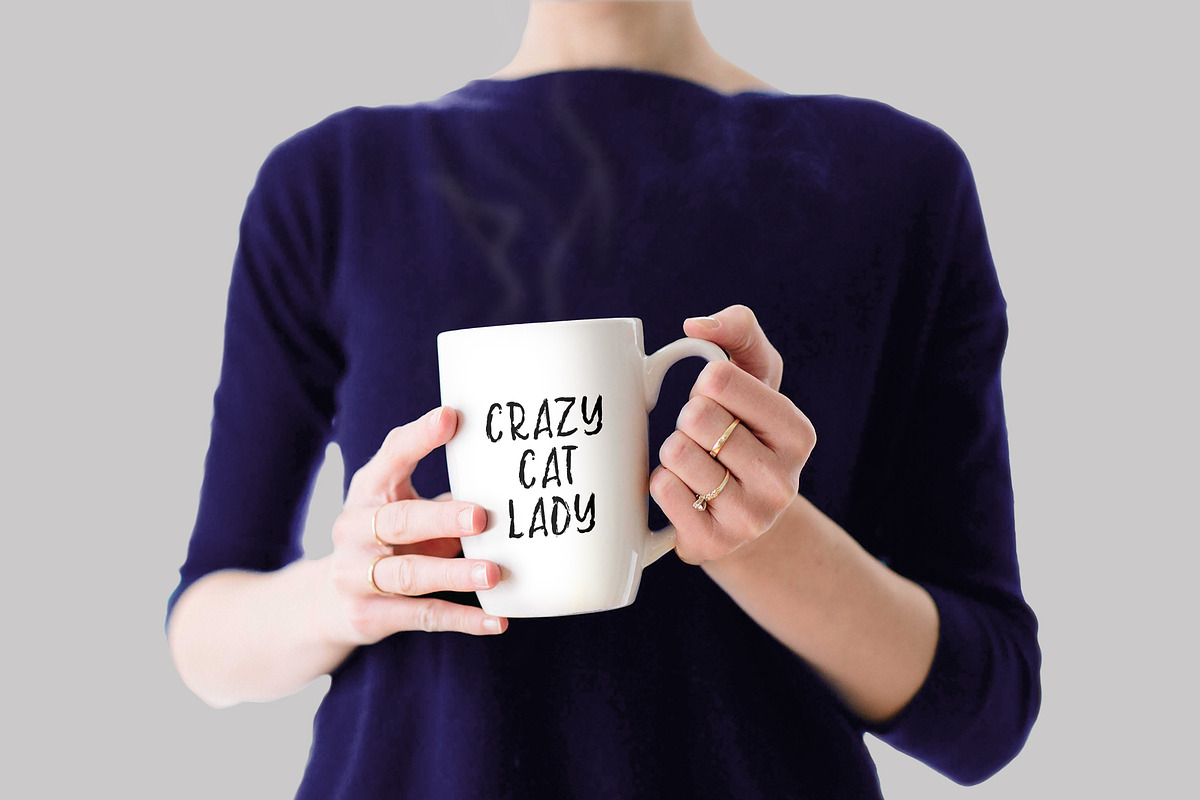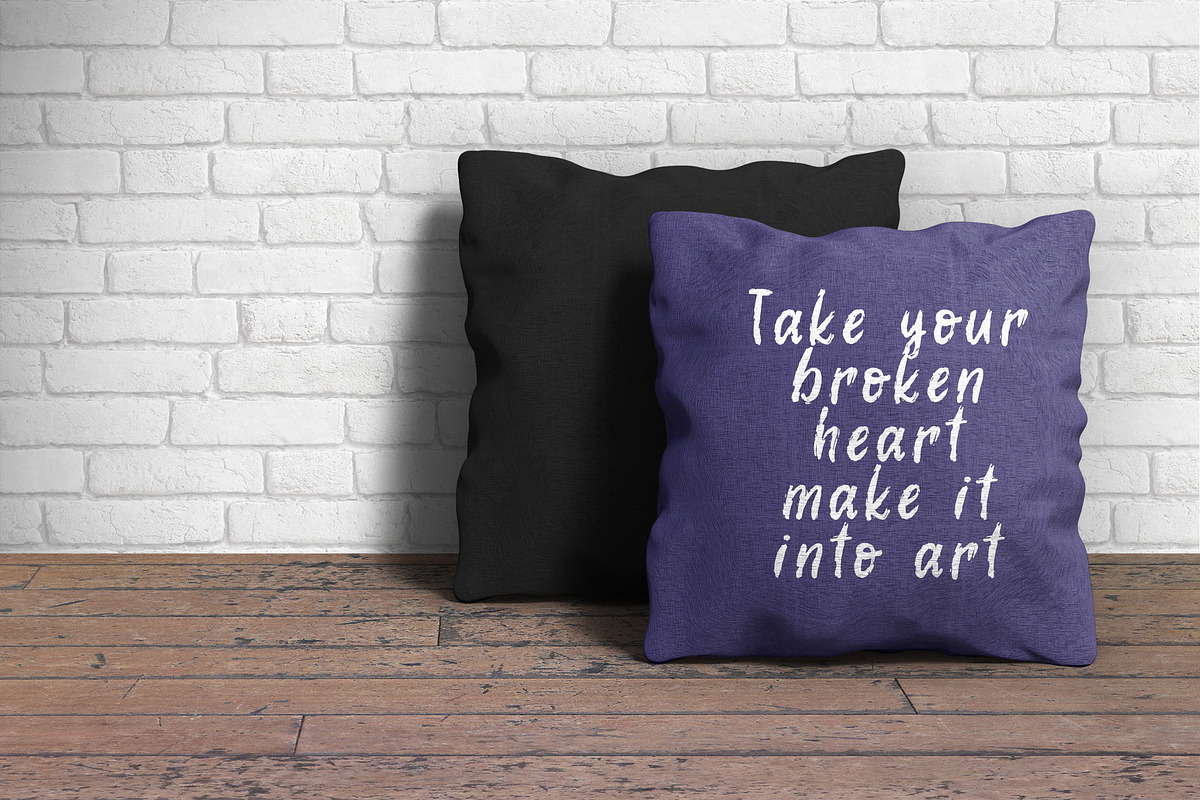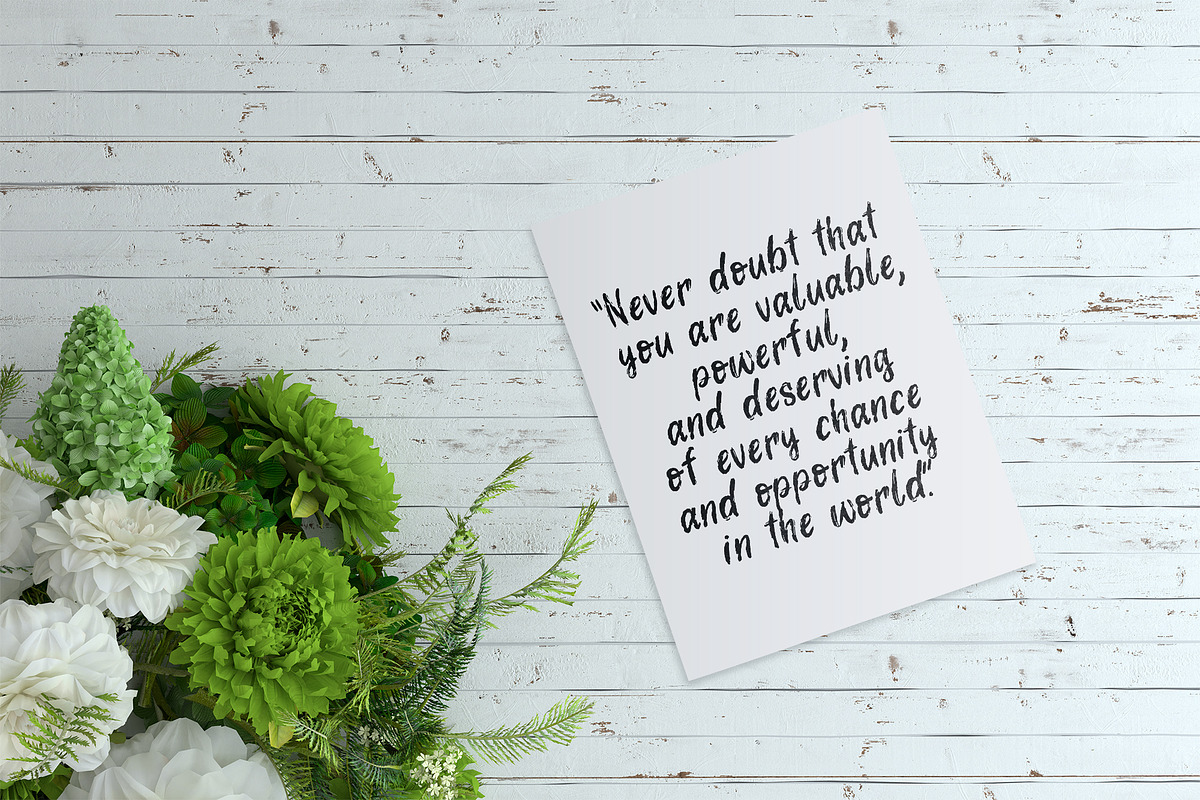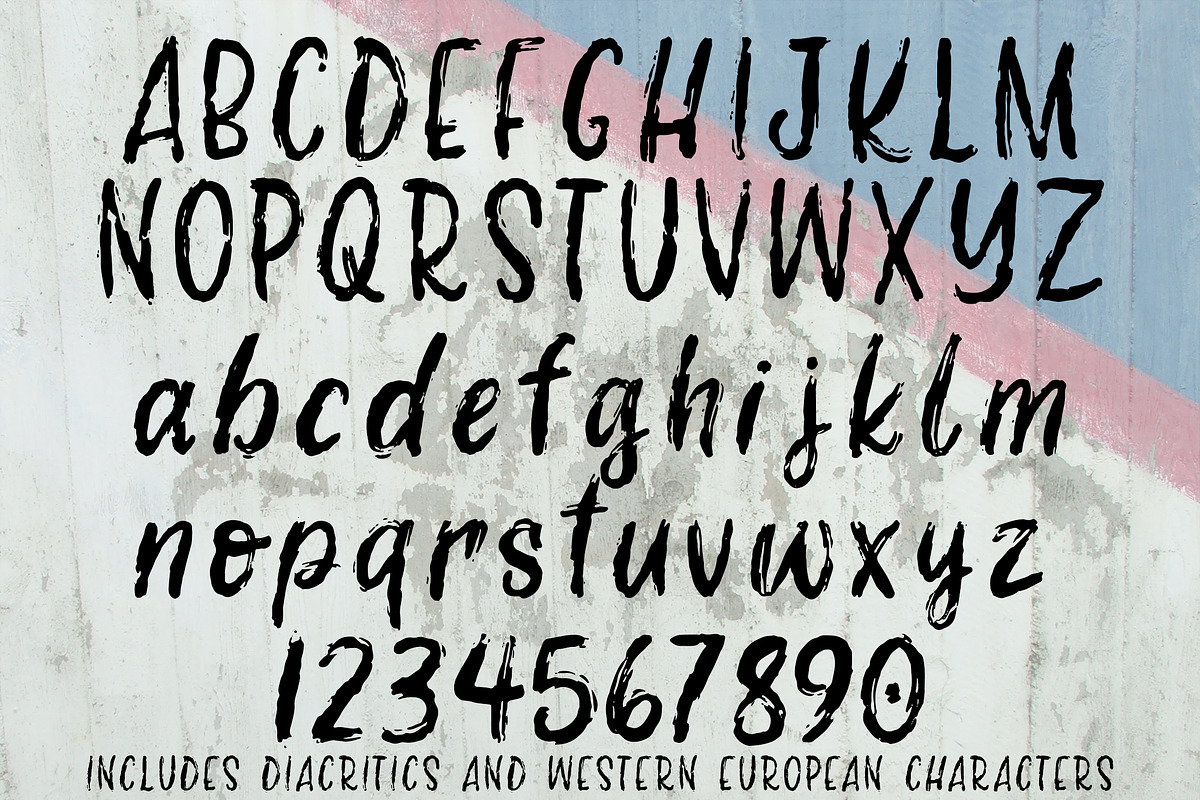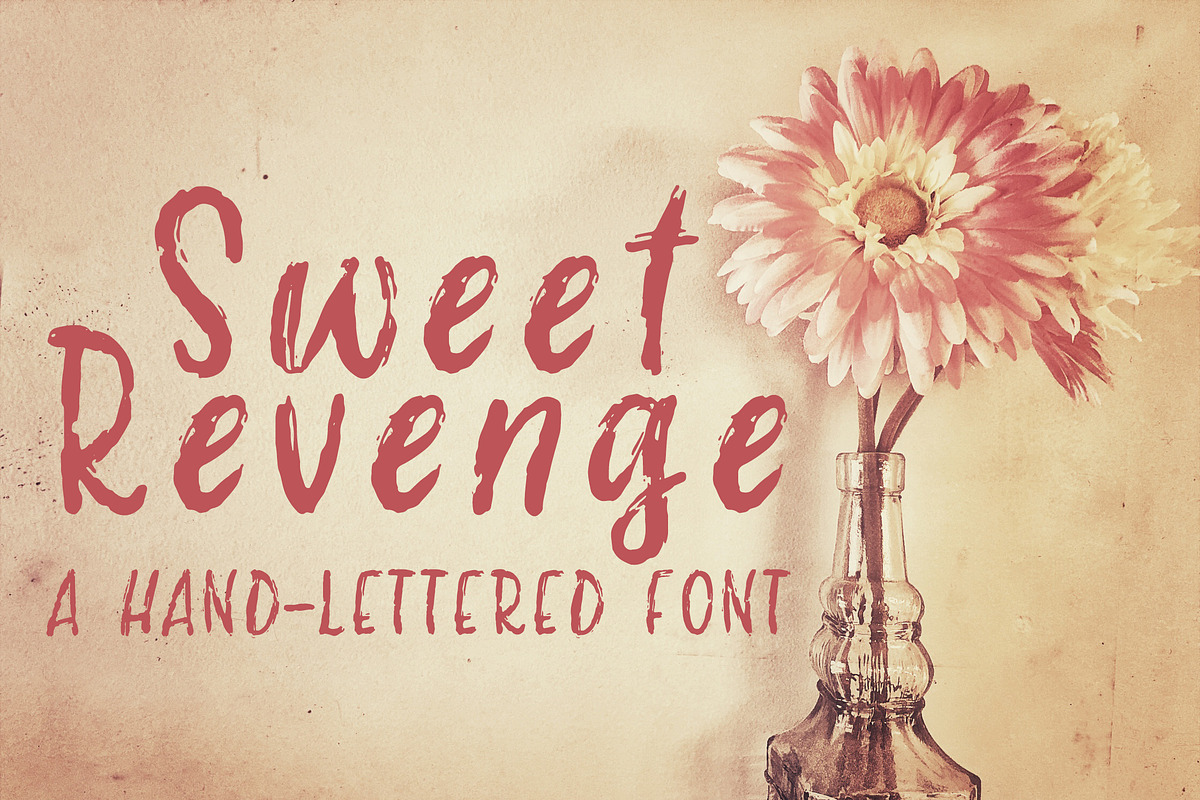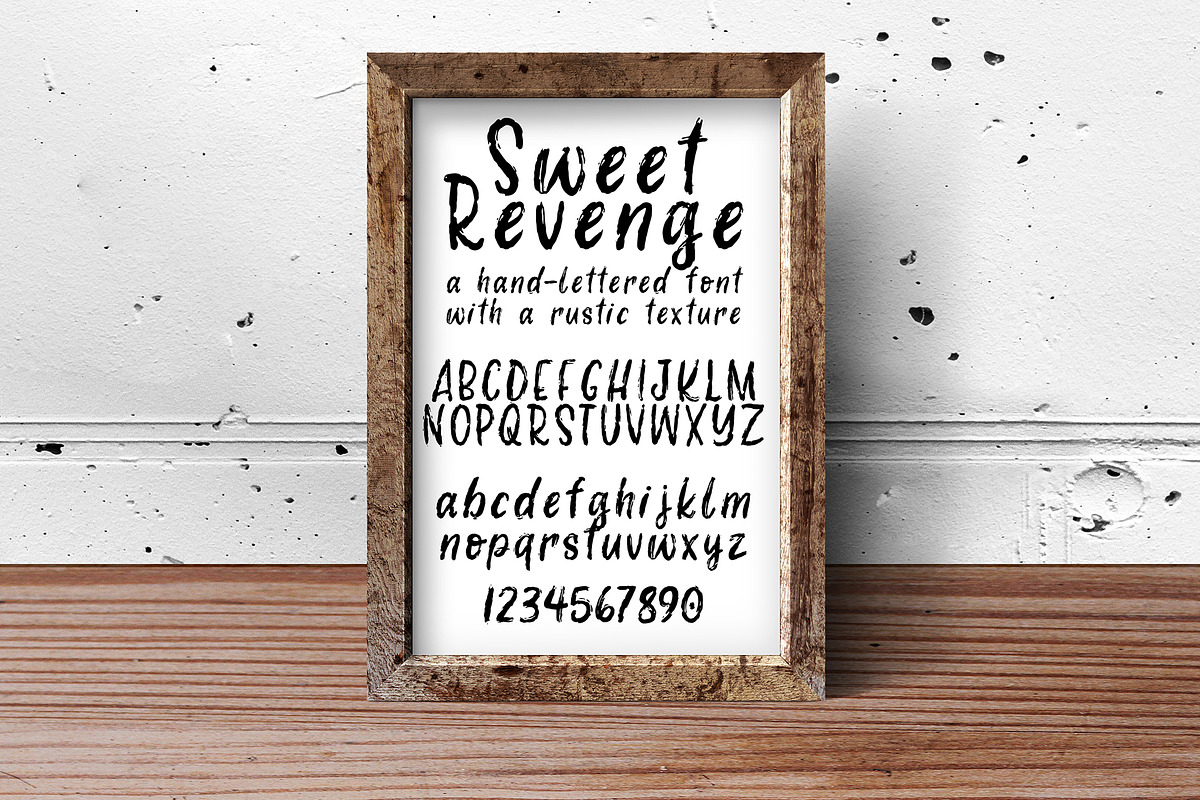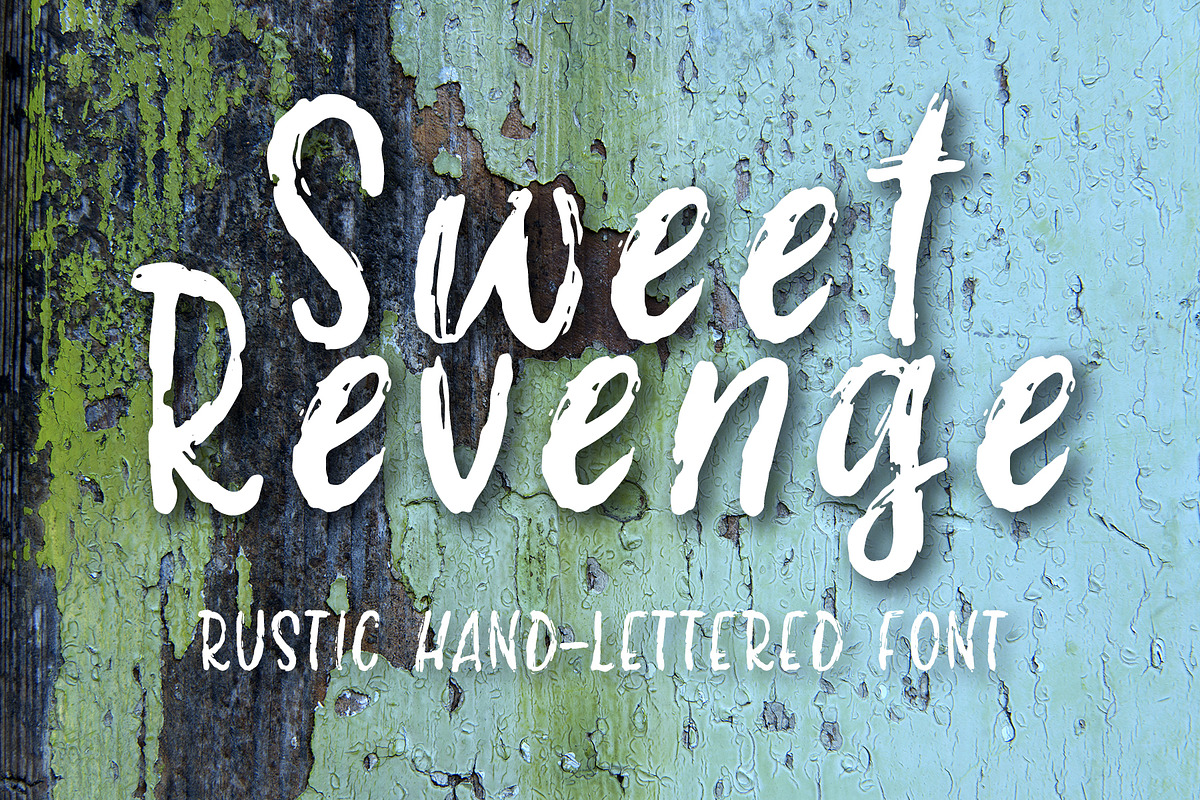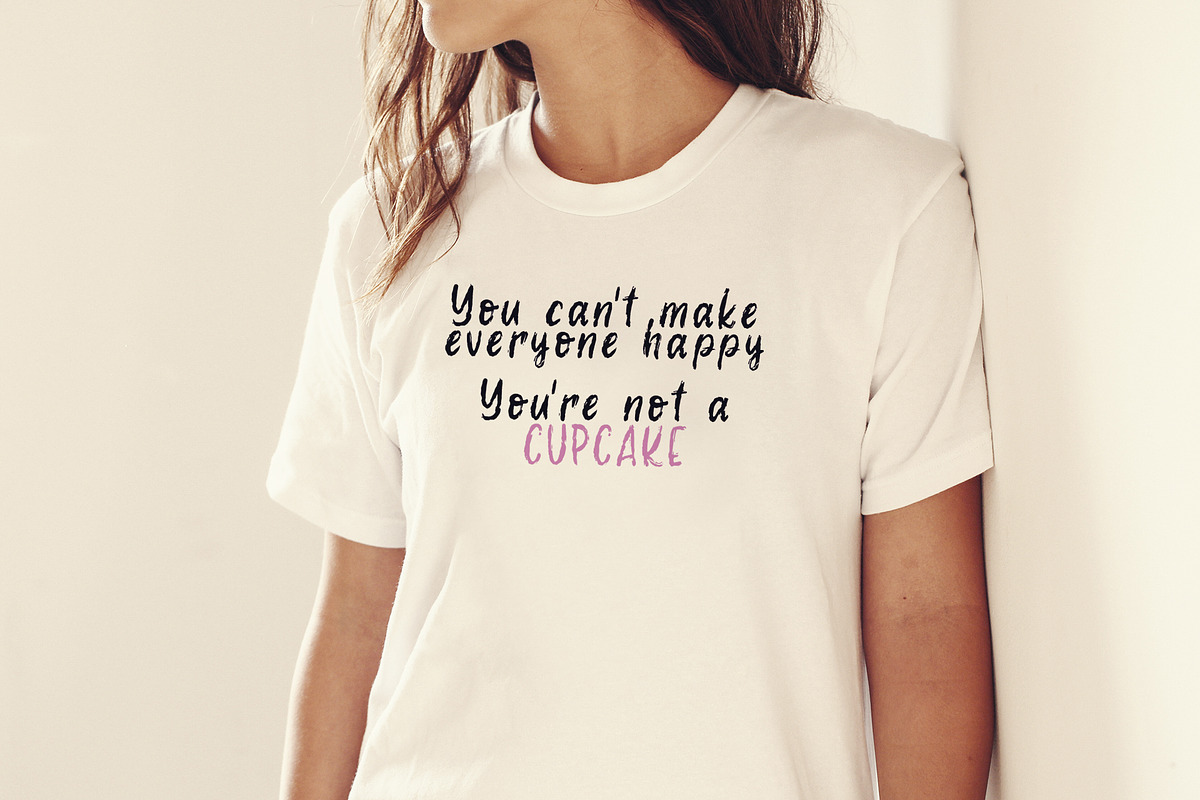
Sweet Revenge hand-lettered font
Sweet Revenge hand-lettered font by Alexis Gentry is a font selected for branding, posters, packaging, typography.
Why Sweet Revenge hand-lettered font is worth a look
Sweet Revenge hand-lettered font by Alexis Gentry fits naturally into Branding, posters, packaging, typography.